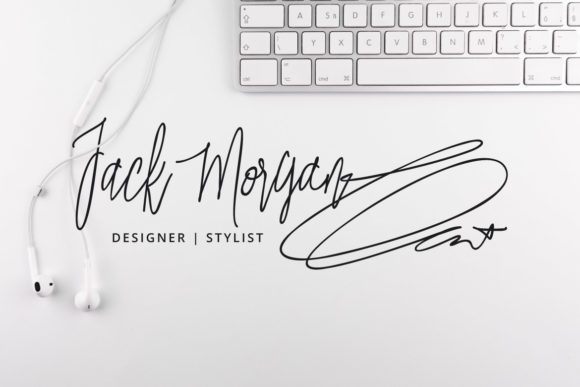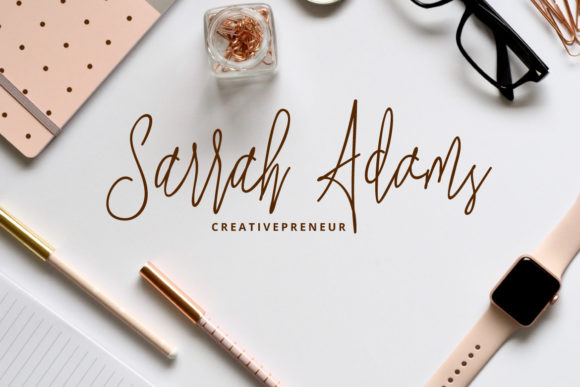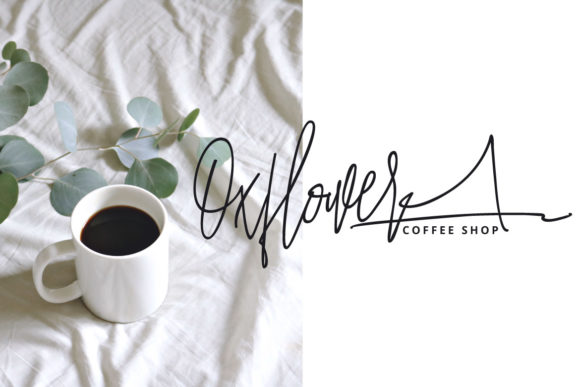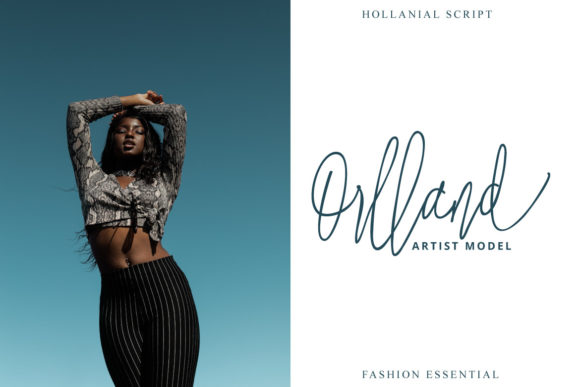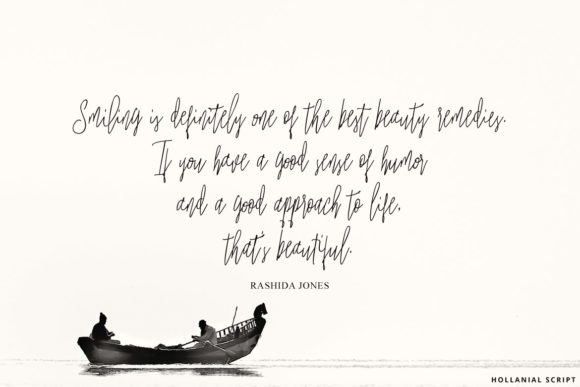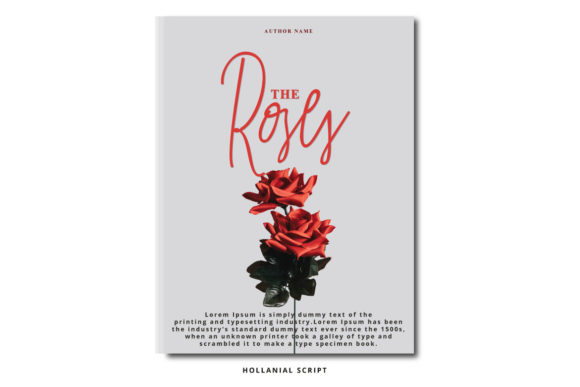
Enter the Hollanial Font, a stylish and modern script font that’s perfect for branding, signature, wedding invitations, promotion, product packaging, and more! With its elegant and sophisticated design, the Hollanial Font is sure to elevate your projects to the next level. Whether you’re a seasoned designer or just starting out, this font is a valuable addition to your toolkit.
- Font Family: Hollanial Font is a unique, high-end script font designed for elegant and luxurious designs.
- Character Count: The font includes 260 characters, including uppercase and lowercase letters, numbers, and special characters.
- Unique Characteristics: Hollanial Font features intricate, flowing lines and elegant connections between letters, making it perfect for high-end branding, invitations, and wedding designs.
Hollanial Font Review
I’ve had the chance to work with the Hollanial Font, and overall, I’m quite impressed with its unique aesthetic. Here are some of its standout features:
- ✨ Unique blend of modern and traditional elements: The Hollanial Font has a distinctive look that’s both contemporary and nostalgic at the same time.
- ✨ High-quality rendering: The font is well-designed and renders beautifully in various sizes and resolutions.
- ✨ Versatile: The Hollanial Font is suitable for a wide range of applications, from body text to headings and even logos.
- ⚠️ Limited language support: The Hollanial Font appears to be designed primarily for English-language use, and support for other languages may be limited or inconsistent.
- ⚠️ Not ideal for small text: While the font looks great at larger sizes, it may become difficult to read when used at very small sizes.
Overall, I think the Hollanial Font is a great choice for designers looking for a unique and stylish font. While it has some limitations, its strengths far outweigh its weaknesses. With some careful consideration of its limitations, the Hollanial Font can be a valuable addition to any designer’s toolkit.
Tips for Getting the Most Out of Hollanial Font
Use Hollanial Font to add a touch of elegance to your designs.
Combine Hollanial Font with other fonts for a unique look.
Hollanial Font is ideal for:
Branding and logos.
Print materials such as business cards and brochures.